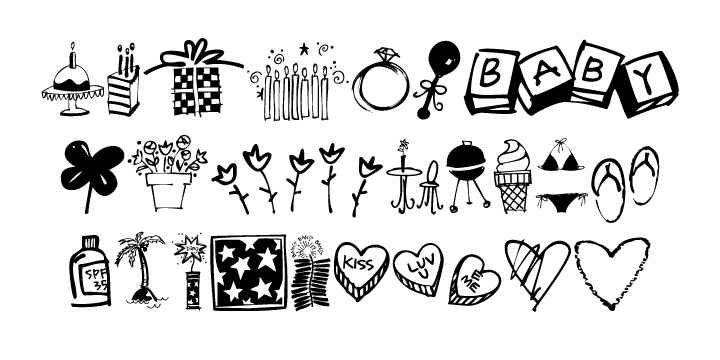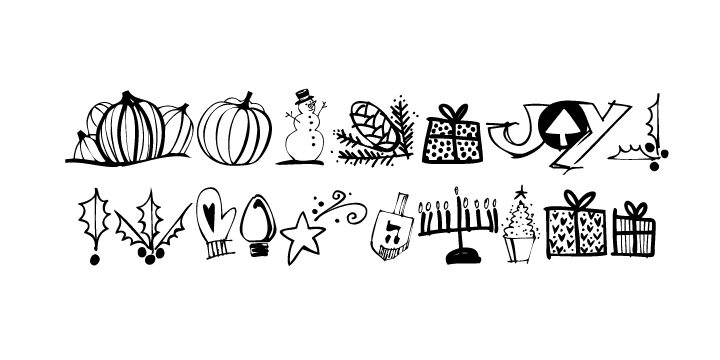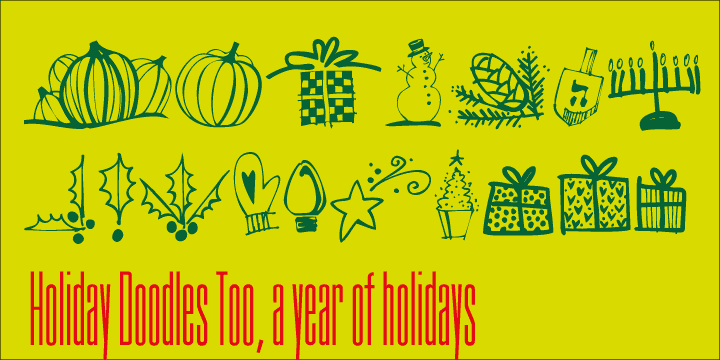
Birthdays, babies, Summer, weddings, presents, St. Pat’s Day, 4th of July, Valentine’s Day, Fall, Christmas, Hanukkah and more.
This font is a great clip art addition to the Doodles font family from Outside the Line. For best results use in larger point sizes.